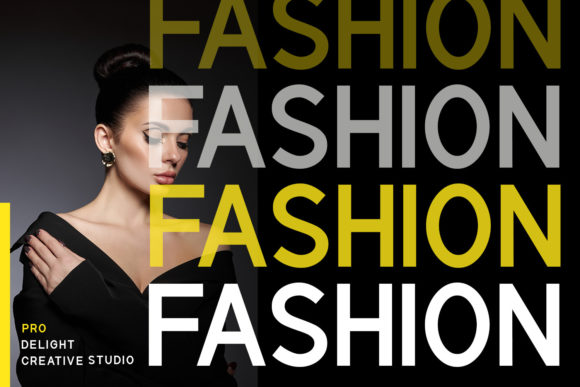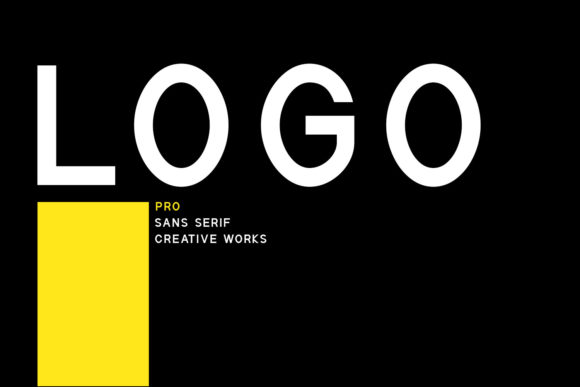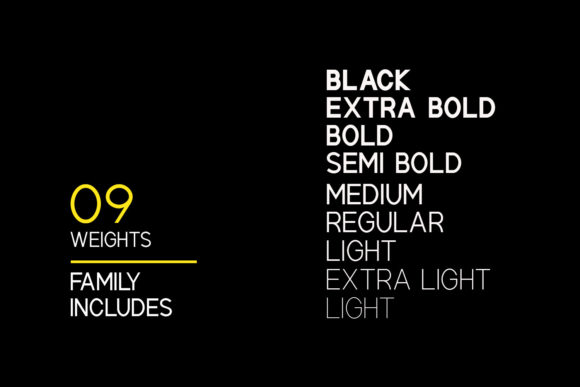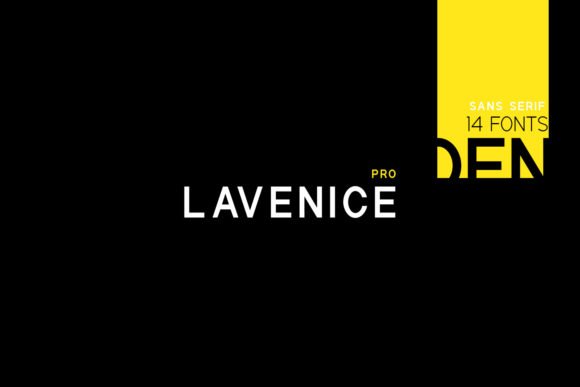
Introduction to Lavenice Font
Lavenice is a unique and modern sans serif font.
Suitable to a wide variety of designs due to its neat and simple style, this font has the potential to become your favorite go-to font, no matter the occasion .
Key Features of Lavenice Font
Why Choose Lavenice Font?